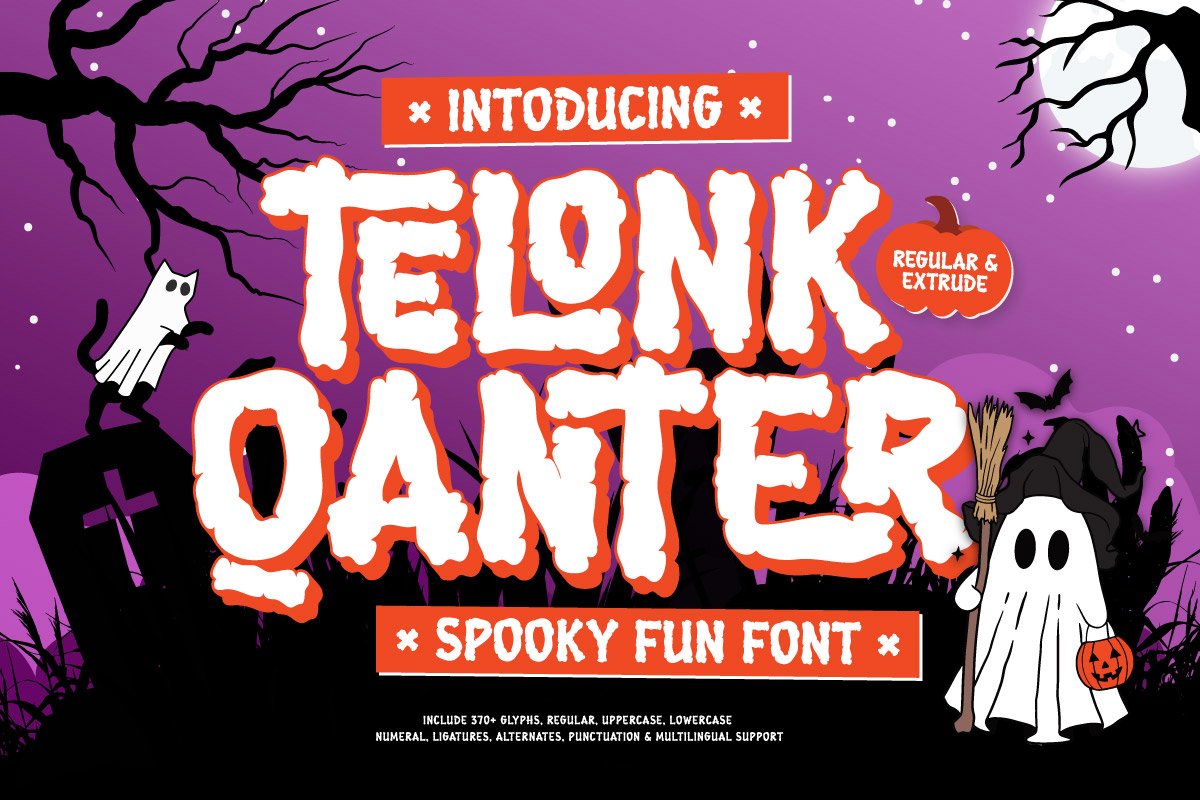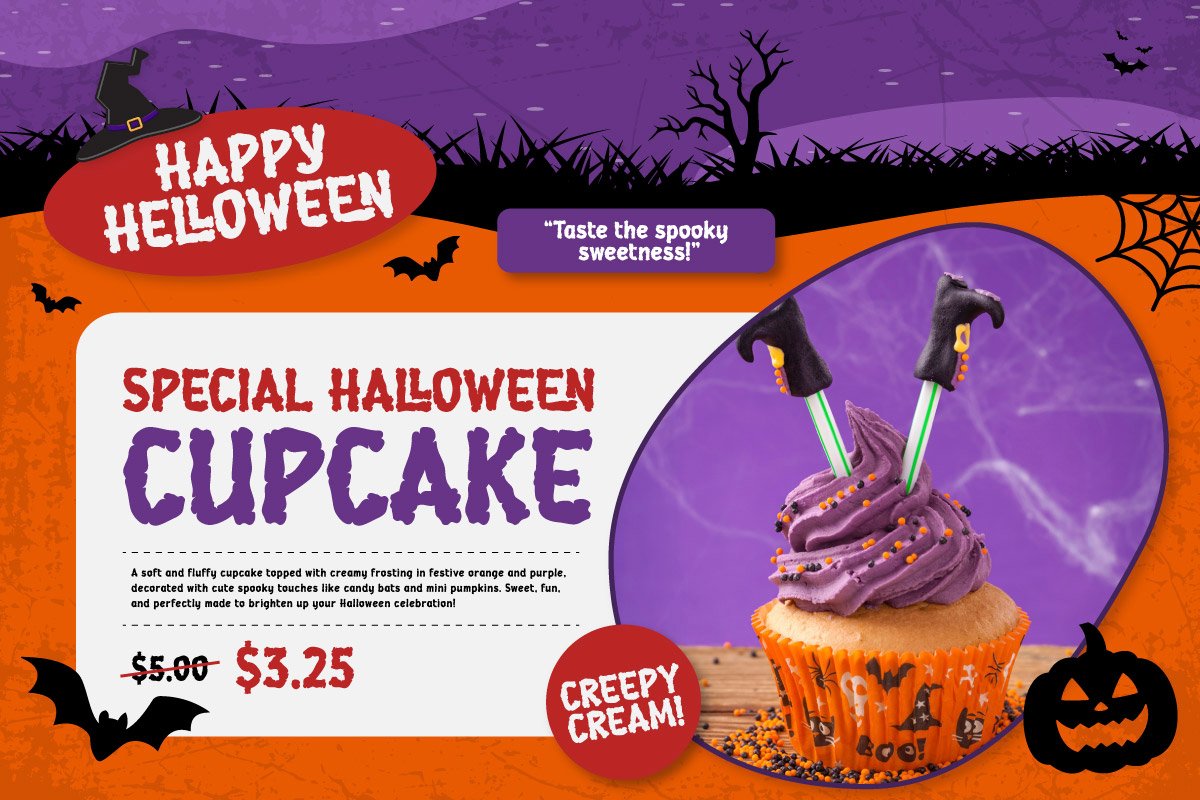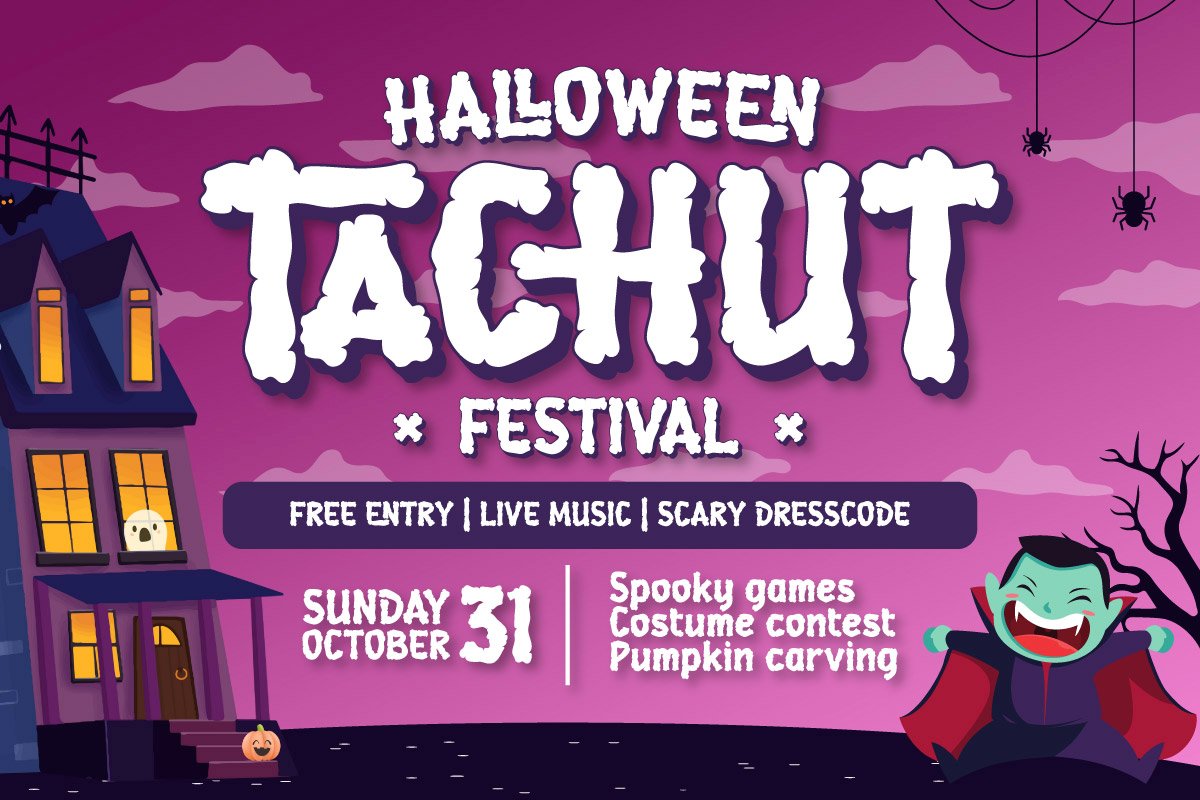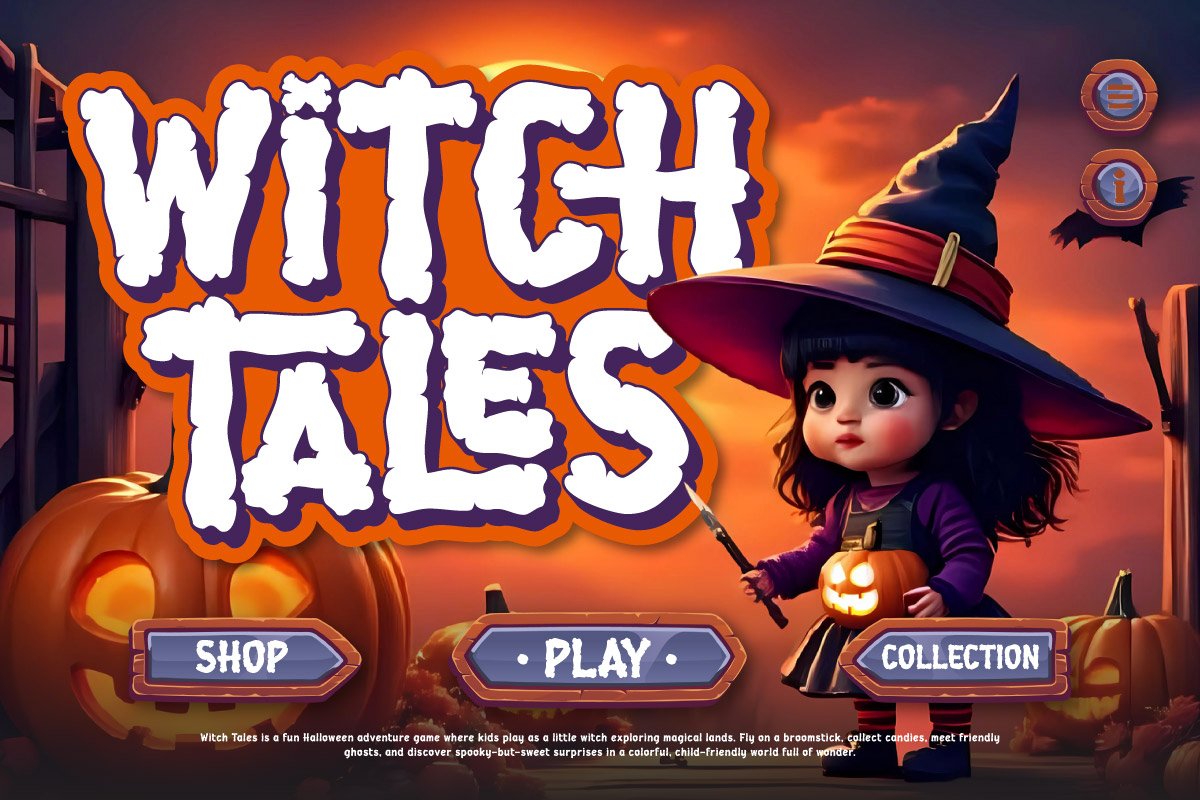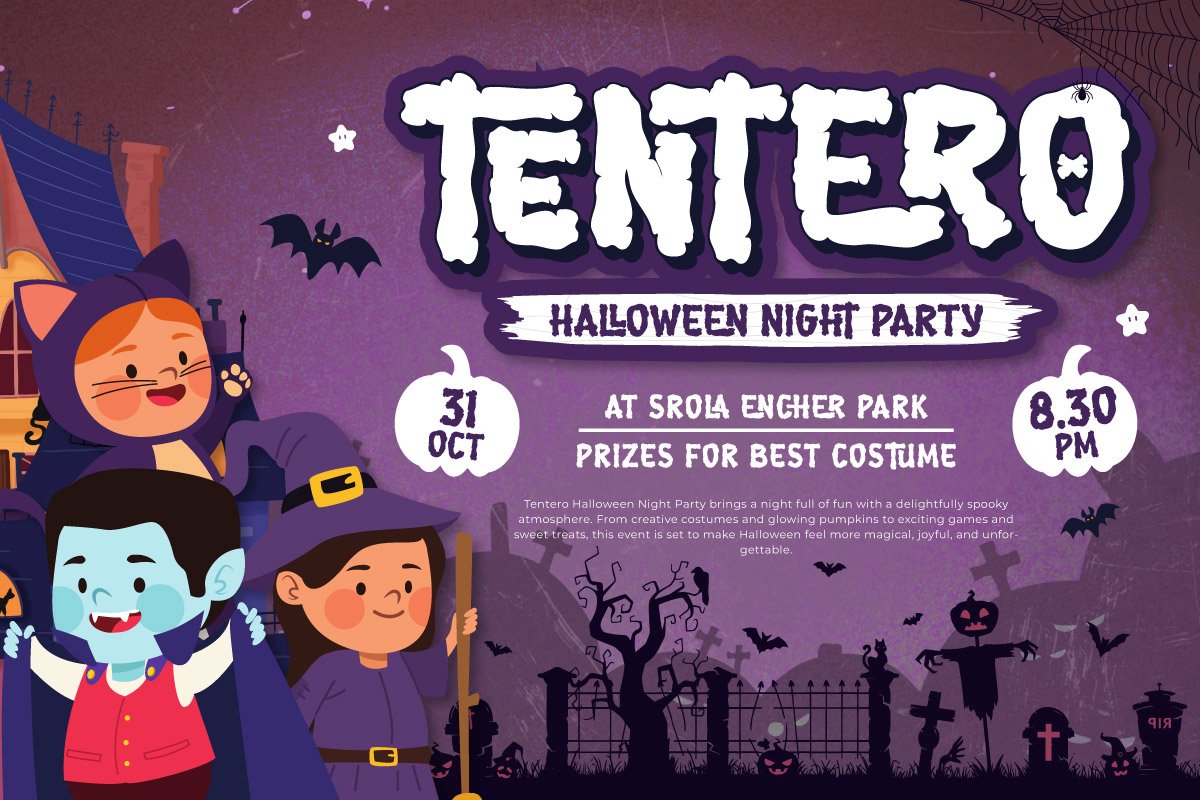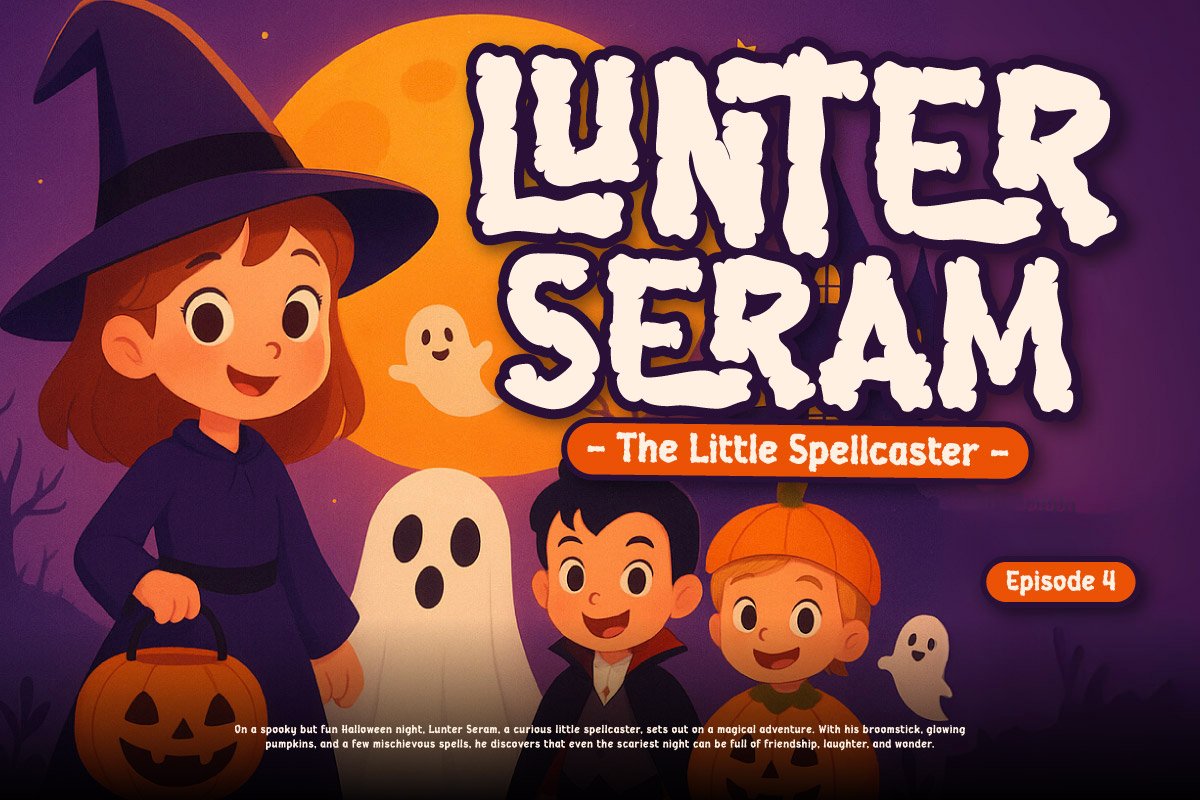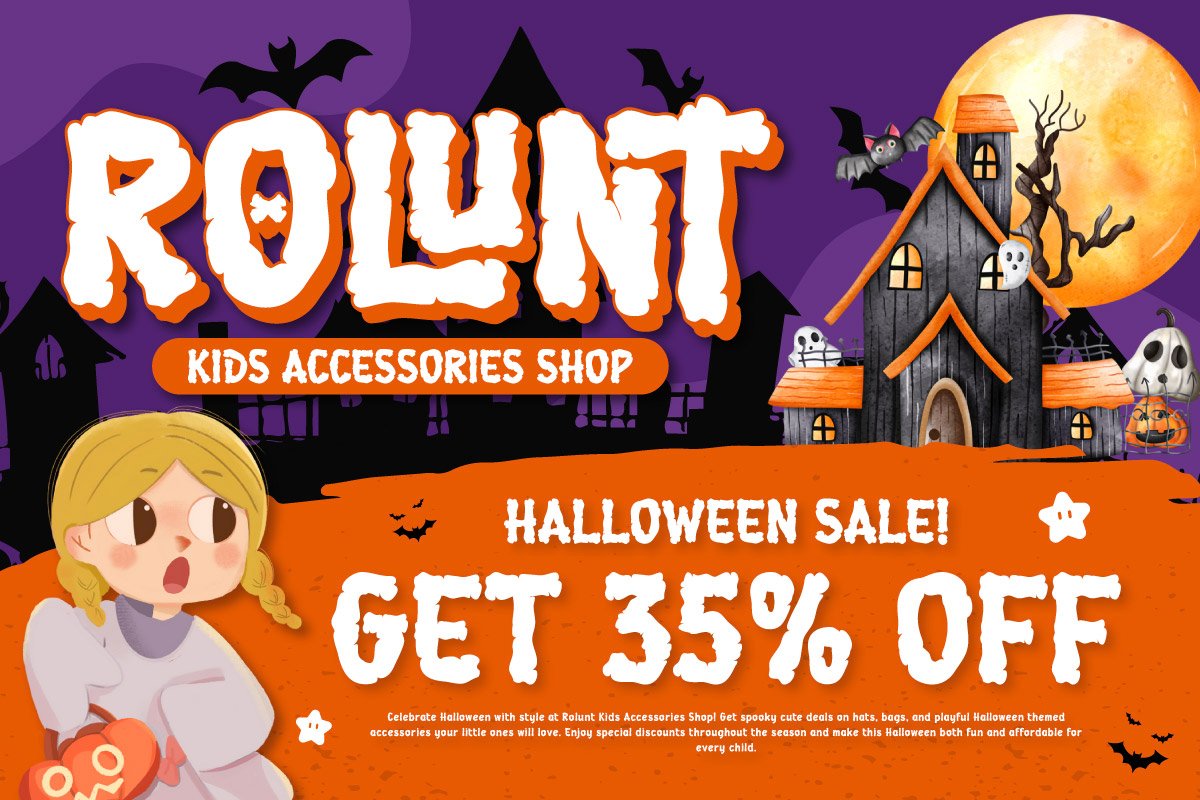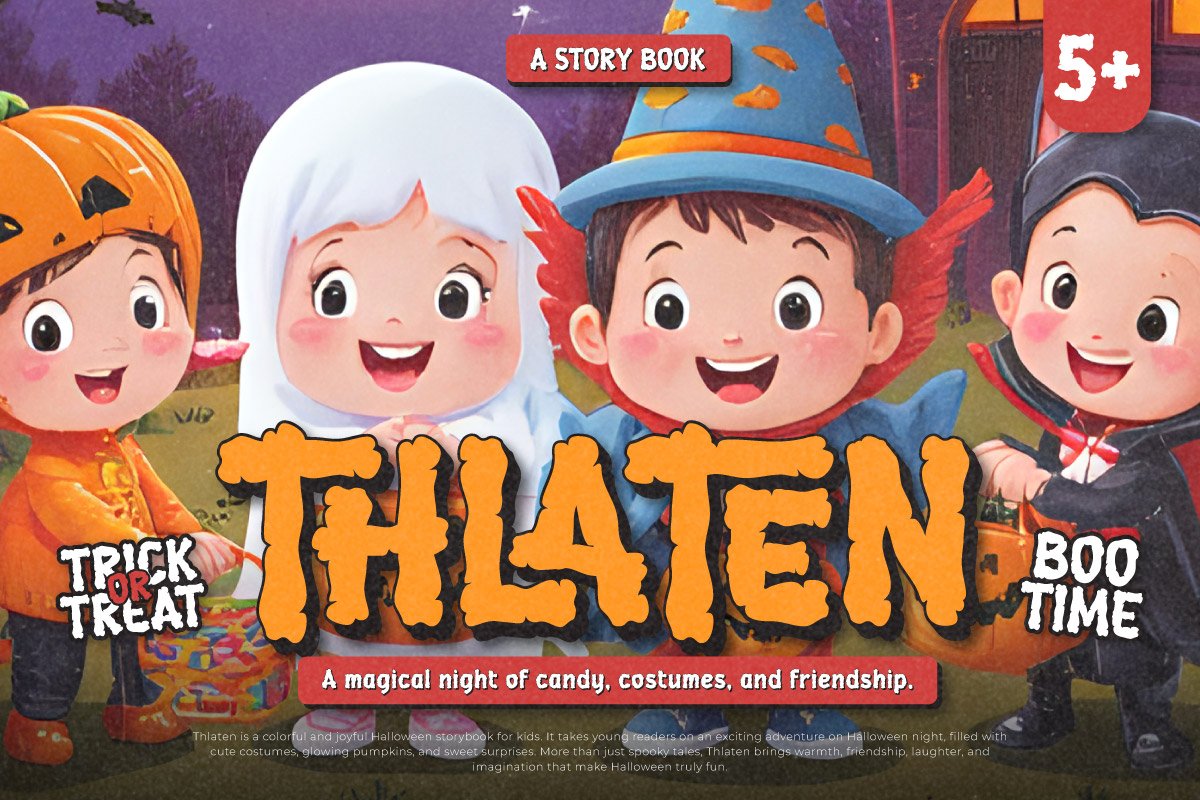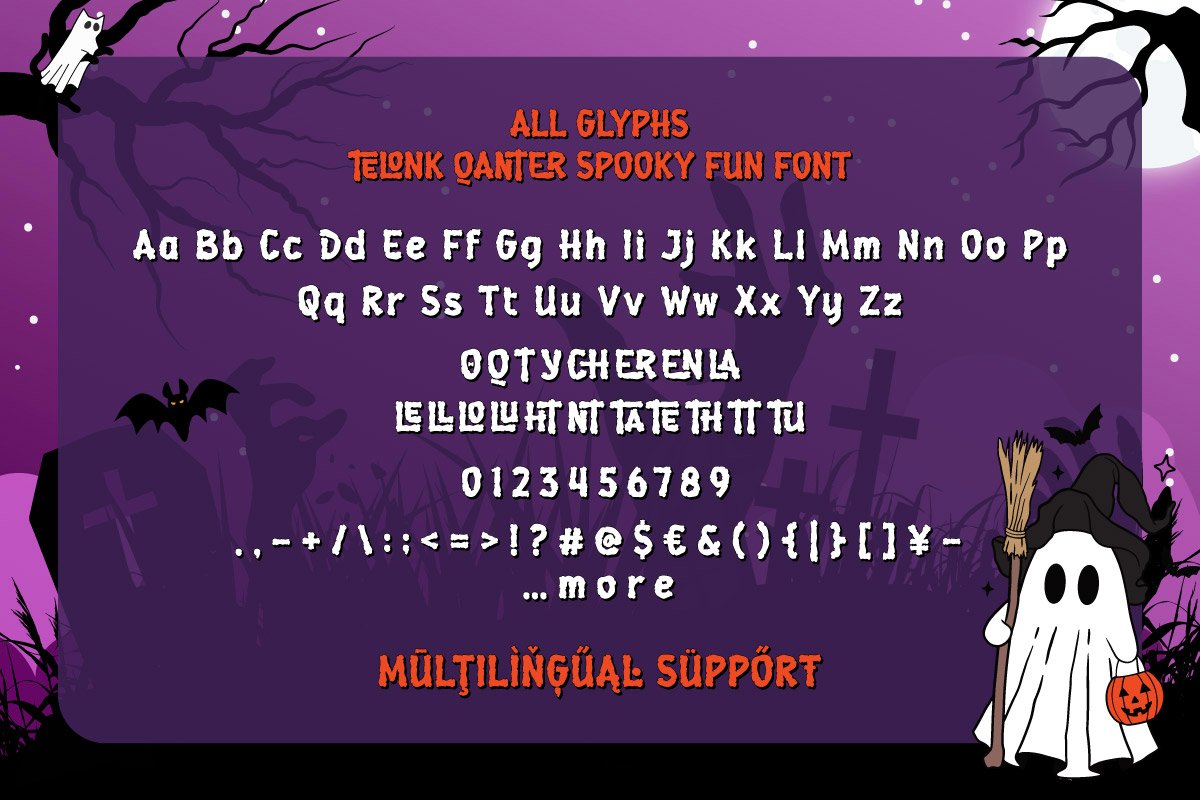
7. Telonk Qanter – Spooky Fun Font
Telonk Qanter – Spooky Fun Font
Telonk Qanter is a spooky yet playful display font designed to bring Halloween vibes and creepy charm to your projects. With its bold, bouncy, and drippy letterforms, this font is perfect for creating haunted house flyers, trick-or-treat invitations, spooky party posters, game titles, YouTube thumbnails, and seasonal merchandise.
The font comes with Regular and Extrude styles, giving you the flexibility to create layered effects for extra depth and dimension. It includes uppercase, lowercase, numbers, punctuation, ligatures, alternates, and multilingual support—making it a versatile choice for both print and digital designs.
If you’re working on Halloween-themed graphics, spooky branding, or any project that needs a dose of ghostly fun, Telonk Qanter will make your typography scream with style.